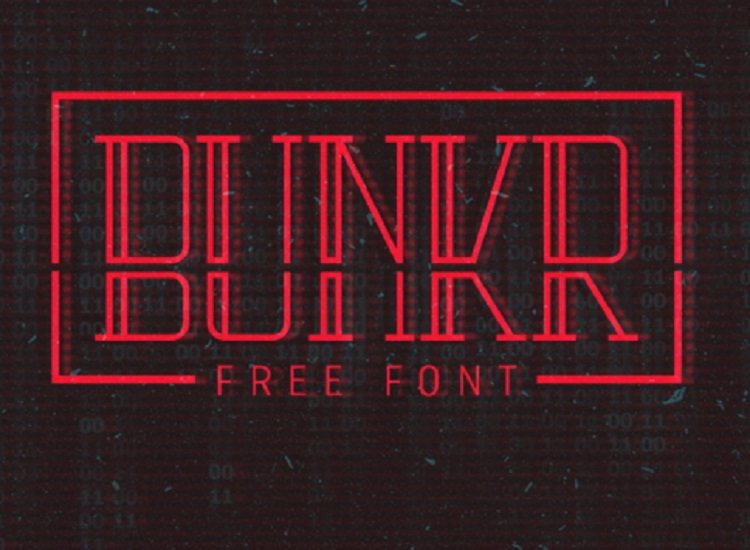
Bunkr Font
Introducing Bunkr – Free Font! designed and shared by the Felipe Ramazzoti. Bunkr is a display font, is a Modern Style. It is an opentype font and suitable for any Graphic Designs such as T-shirt and Poster Design, Branding Materials, Logo and All Stationery Packages, and for Photography with some texts or quotes inside it.